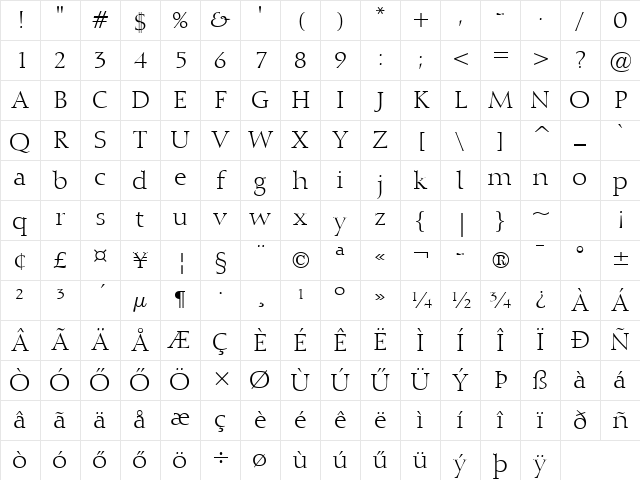
Huni_Callt Regular
Design Context for Huni_Callt
Huni_Callt is a composed and adaptable typeface that performs quietly and consistently across a wide range of design contexts.
Pro Tip: Use Huni_Callt in both headline and body roles to test its range before committing to a single application.